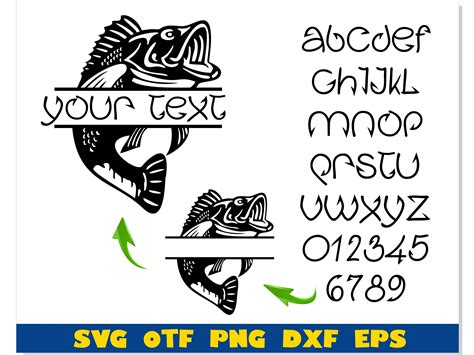
Discover the Charm of Fish Hook Monogram Font: Personalize Your Designs with this Elegant Typeface!
Are you tired of using the same old generic fonts in your designs? Want to add a touch of elegance and personality to your work? Look no further than the Fish Hook Monogram Font!
This unique and stylish typeface is perfect for personalizing your designs and making them stand out from the crowd. With its intricate details and sleek design, the Fish Hook Monogram Font is sure to impress.
Whether you're designing logos, wedding invitations, or social media posts, the Fish Hook Monogram Font is versatile enough to suit any project. Its timeless appeal makes it perfect for both modern and classic designs.
Don't settle for boring, cookie-cutter designs. Let the Fish Hook Monogram Font add a touch of sophistication and charm to your work. With its easy-to-use features, you don't have to be a design expert to create stunning works of art.
Discover the Charm of Fish Hook Monogram Font: Personalize Your Designs with this Elegant Typeface!
Typography is an essential part of any design, and choosing the right font can make all the difference. The Fish Hook Monogram Font is a unique typeface that can add elegance and sophistication to your designs. This blog post will explore the features of this font and how it can be used to personalize your designs.
What is Fish Hook Monogram Font?
Fish Hook Monogram Font is a decorative uppercase font that features a monogram style. It is characterized by its curved and intertwined lines, which create a sophisticated and elegant look. The monogram design makes it ideal for personalizing projects such as wedding invitations, logos, and branding materials. The font comes in both regular and bold versions, making it versatile and suitable for a range of design needs.
The Features of Fish Hook Monogram Font
The Fish Hook Monogram Font has several unique features that set it apart from other monogram fonts. These include:
| Feature | Description |
|---|---|
| Curved Lines | The font features curved, graceful lines that create a sense of movement and flow. |
| Monogram Style | The letters are intertwined and connected, creating a visually appealing monogram effect. |
| Two Versions | The font comes in both regular and bold versions, making it flexible and suitable for various designs. |
Using Fish Hook Monogram Font in Your Designs
There are several ways you can use Fish Hook Monogram Font in your designs. Here are some ideas:
Wedding Invitations
The elegant, monogram style of this font makes it perfect for wedding invitations. Use it for the couple's initials, or to create a monogram logo for the event.
Branding Materials
The unique design of Fish Hook Monogram Font makes it a great choice for branding materials. Use it for your business logo, or to add an elegant touch to business cards, letterheads, and more.
Personalized Gifts
Create personalized gifts for your friends and family using Fish Hook Monogram Font. Use it to monogram items such as towels, aprons, and bags to make them truly one-of-a-kind.
Opinions on Fish Hook Monogram Font
Fish Hook Monogram Font is a sophisticated and elegant typeface that can add a unique touch to any design. Its distinctive design makes it particularly suitable for personalization projects and branding materials. Overall, it is a versatile and useful font to have in your typography toolbox.
The Pros of Fish Hook Monogram Font
- Elegant and sophisticated design
- Suitable for personalization projects such as wedding invitations
- Versatile, with both regular and bold versions
The Cons of Fish Hook Monogram Font
- May not be suitable for some design styles
- Limited to uppercase characters only
- Not suitable for large blocks of text
Fish Hook Monogram Font is an elegant and unique typeface that can add a touch of sophistication to any design. Its curved lines and monogram style make it particularly suitable for personalization projects such as wedding invitations or branding materials. While it may not be suitable for all design styles, it is a versatile and useful font to have in your typography toolbox.
Yes, you can customize the Fish Hook Monogram Font designs to fit your specific needs. You can change the colors, sizes, and even add your own embellishments to create a truly personalized design.